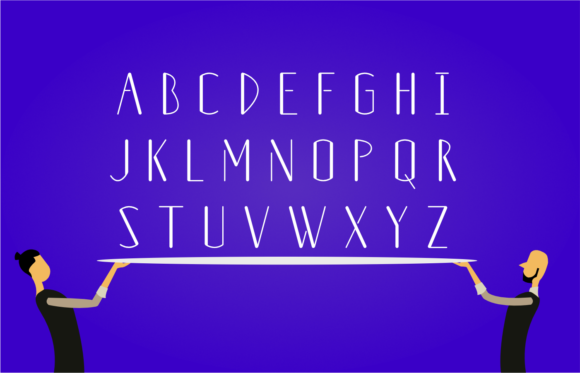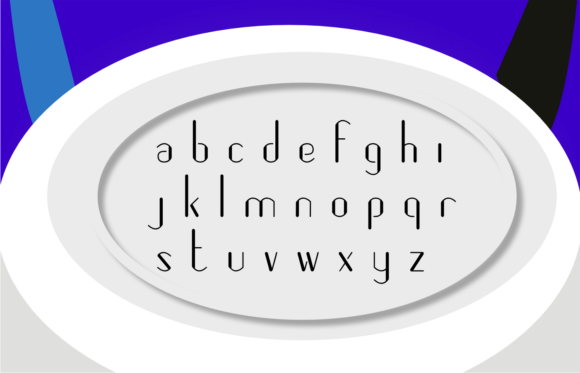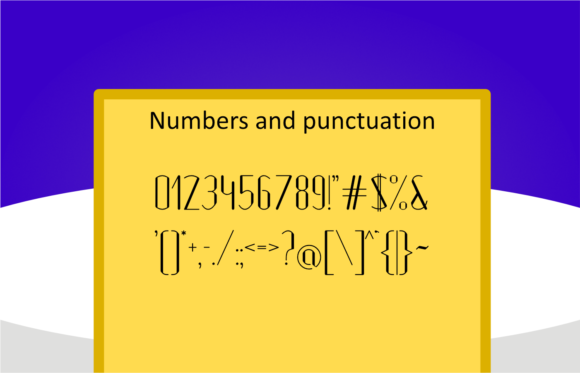
Introducing Apal Font: The Ultimate Display Font for Modern Designers
Are you tired of using the same old fonts for your design projects? Look no further than Apal Font, a clean and modern display font that’s sure to take your creations to the next level. With its sleek lines and contemporary style, Apal Font is the perfect addition to any designer’s toolkit.
What is Apal Font?
Apal Font is a display font designed to make a statement. Its clean and modern aesthetic makes it perfect for a wide range of projects, from branding and advertising to packaging and digital media. With its unique character and versatility, Apal Font is sure to help your designs stand out from the crowd.
Key Features of Apal Font
- Clean and Modern Design: Apal Font features a sleek and contemporary design that’s perfect for modern designers.
- Highly Versatile: Apal Font can be used for a wide range of projects, from display text to headings and titles.
- Easily Readable: Despite its modern design, Apal Font is highly readable, even at smaller sizes.
- Unique Character: Apal Font has a unique character that sets it apart from other display fonts.
Why Choose Apal Font?
So why choose Apal Font for your design projects? Here are just a few reasons:
- Stand Out from the Crowd: With its unique character and modern design, Apal Font is sure to help your designs stand out from the crowd.
- Perfect for Branding and Advertising: Apal Font is perfect for branding and advertising projects, where a bold and eye-catching font is essential.
- Easy to Use: Apal Font is easy to use and can be easily integrated into your design workflow.
- High-Quality Design: Apal Font is designed to high standards, ensuring that your designs look professional and polished.
How to Use Apal Font
Using Apal Font is easy. Here are a few tips to get you started:
- Use it as a Display Font: Apal Font is perfect for display text, such as headings and titles.
- Experiment with Different Sizes: Apal Font looks great at a range of sizes, from small headings to large display text.
- Pair it with Other Fonts: Apal Font can be paired with other fonts to create a unique and interesting design.
In conclusion, Apal Font is a clean and modern display font that’s perfect for designers and crafters looking to add a touch of elegance and sophistication to their projects. With its unique character, versatility, and high-quality design, Apal Font is sure to become a staple in any designer’s toolkit. So why not give it a try and see how it can elevate your designs?
Here are a few tips for designers and crafters looking to get the most out of Apal Font:
- Use it to Create a Bold Statement: Apal Font is perfect for creating a bold statement in your designs.
- Experiment with Different Colors: Apal Font looks great in a range of colors, from bright and bold to subtle and pastel.
- Pair it with Images and Graphics: Apal Font can be paired with images and graphics to create a visually interesting design.
- What is Apal Font?
- Apal Font is a clean and modern display font designed for use in a wide range of design projects.